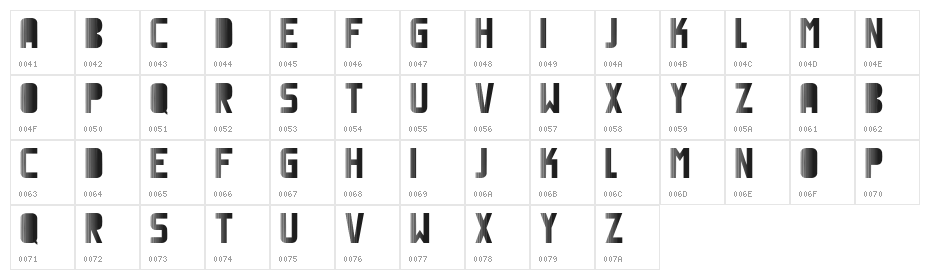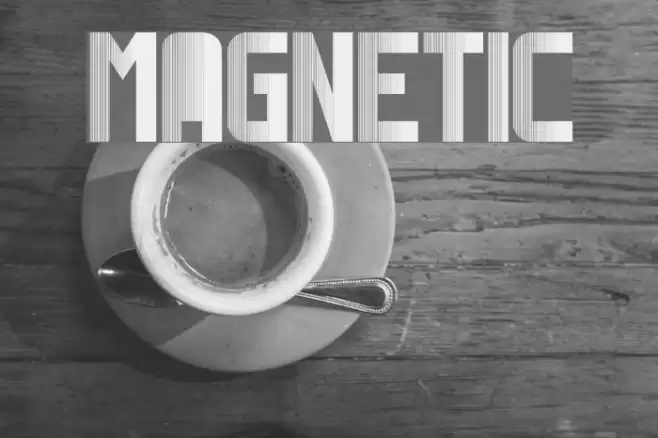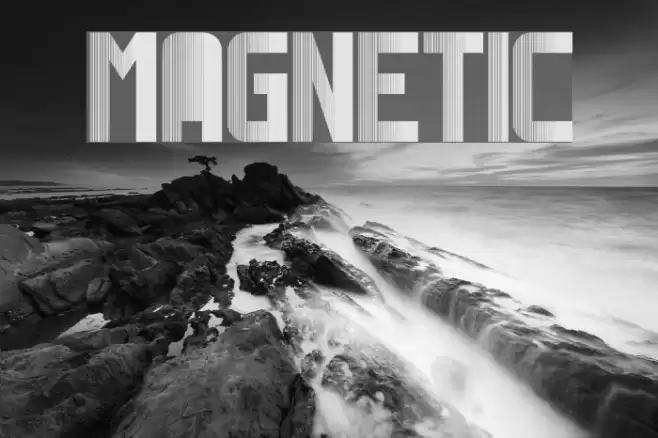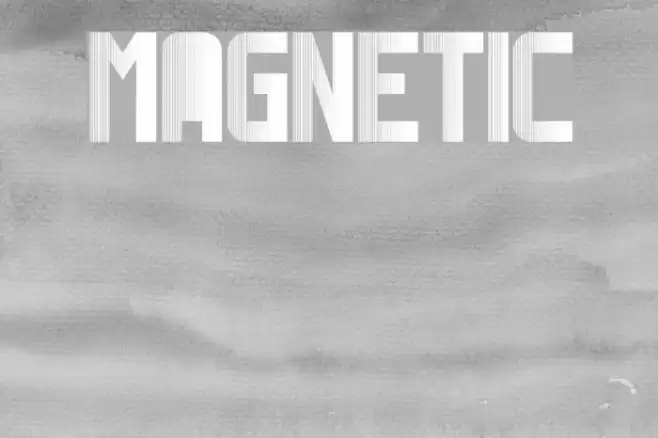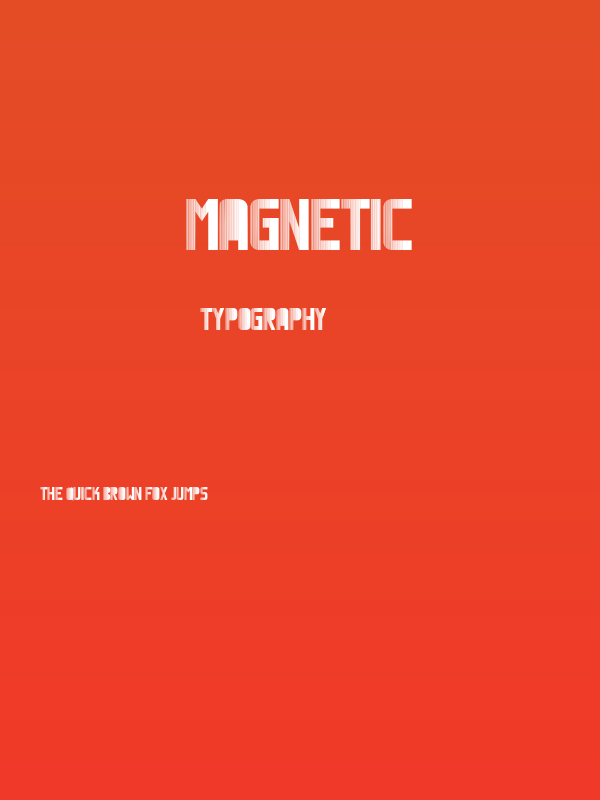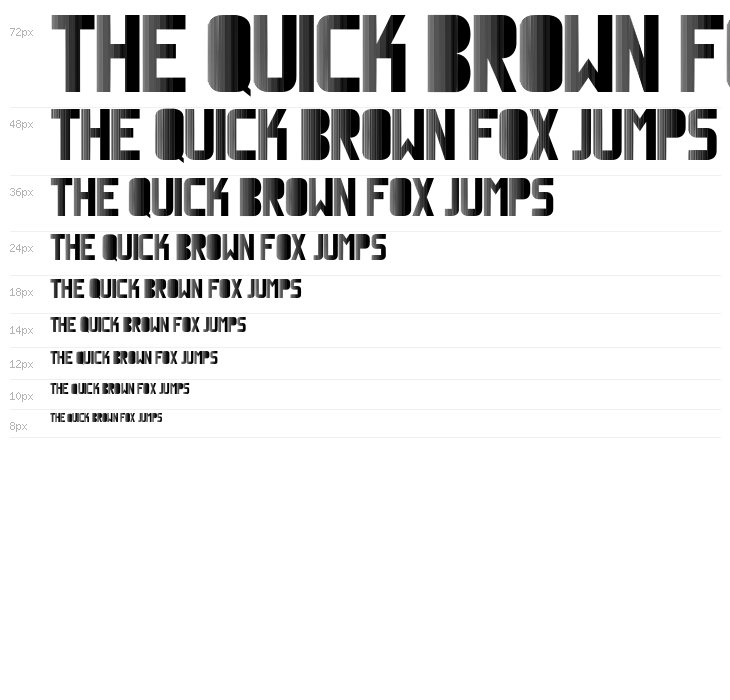
Magnetic Font
Magnetic Description
This font features a unique and striking design characterized by vertical lines that create a sense of movement and energy. The uppercase letters are bold and structured, with each character displaying a series of parallel lines that vary in thickness, creating a dynamic visual effect. The absence of lowercase letters and numerals suggests a focus on impactful, large-scale applications. The font's geometric and modern aesthetic makes it suitable for projects that require a futuristic or high-tech feel. Its distinctive style ensures that it stands out in any design context.
| Proposed Projects | Ideal for posters, album covers, branding for tech companies, and any design needing a modern, eye-catching typeface. |